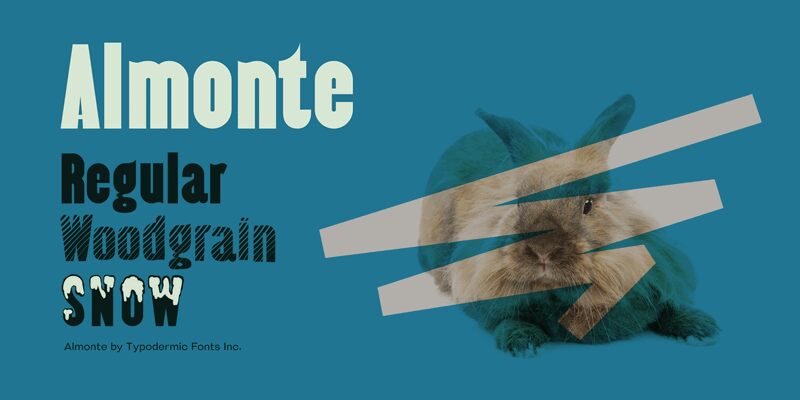
Almonte-Regular
Almonte, a captivating display font crafted by Typodermic Fonts, commands attention with its bold and condensed silhouette. This typographic marvel, resembling a transdimensional goat, exudes a sense of whimsical sophistication that transcends the confines of the traditional barnyard. Its wooden-inspired aesthetic, available in standard, woodgrain, and snow finishes, lends an air of rustic charm and character to any design.
Almonte's unique personality makes it an ideal choice for projects seeking a touch of steampunk or gonzo-historical flair. Its versatility shines through in a variety of applications, from headline and logo design to editorial layouts and packaging. The font's bold and condensed nature ensures maximum impact, making it a standout choice for eye-catching displays and attention-grabbing branding.